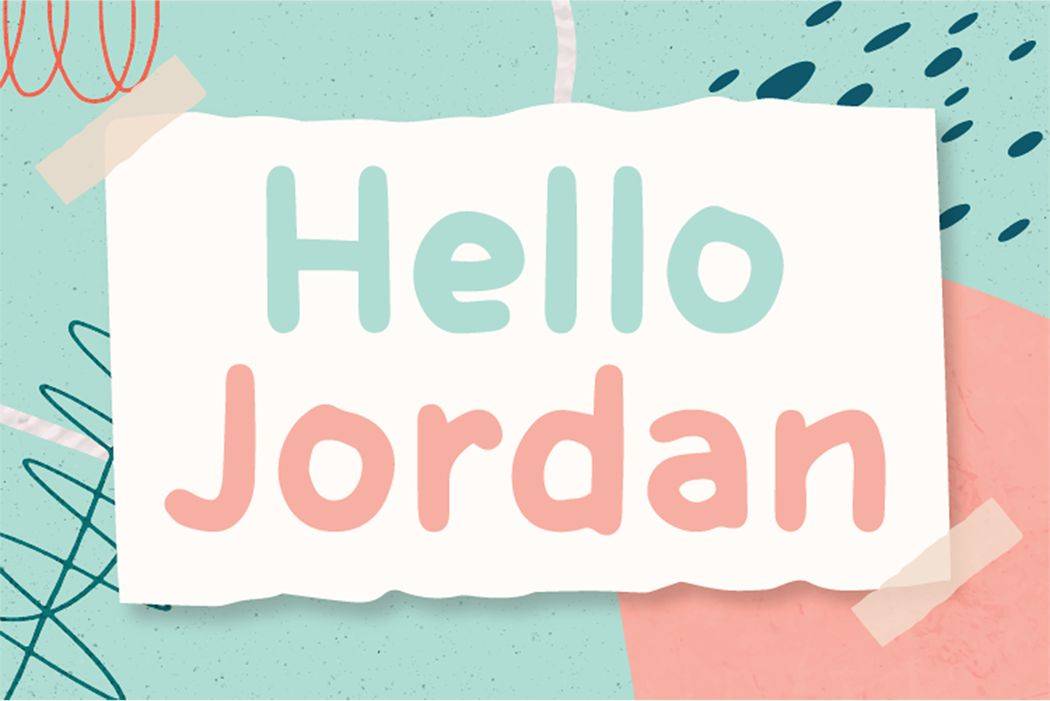
Hello Jordan is a playful and rounded sans serif font with a casual, friendly vibe. Its bold weight, soft edges, and lively letterforms make it ideal for informal designs, children’s projects, or branding that seeks to appear approachable and fun. This font shines in logos, headlines, and creative packaging where warmth and personality are key.
Hello Jordan Font
About Hello Jordan Font
| Font family | Hello Jordan Font |
| Designer | Lady Hanna |